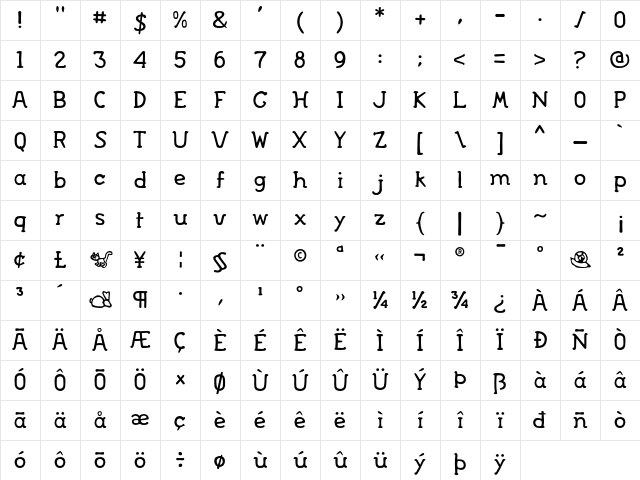
FontSoupCatalan Regular Free Font
FontSoupCatalan Regular
Complete FontSoupCatalan Regular glyph index. Displaying only characters natively supported by FontSoupCatalan Regular font.
Design Context for FontSoupCatalan
FontSoupCatalan is a composed and adaptable typeface that performs quietly and consistently across a wide range of design contexts.